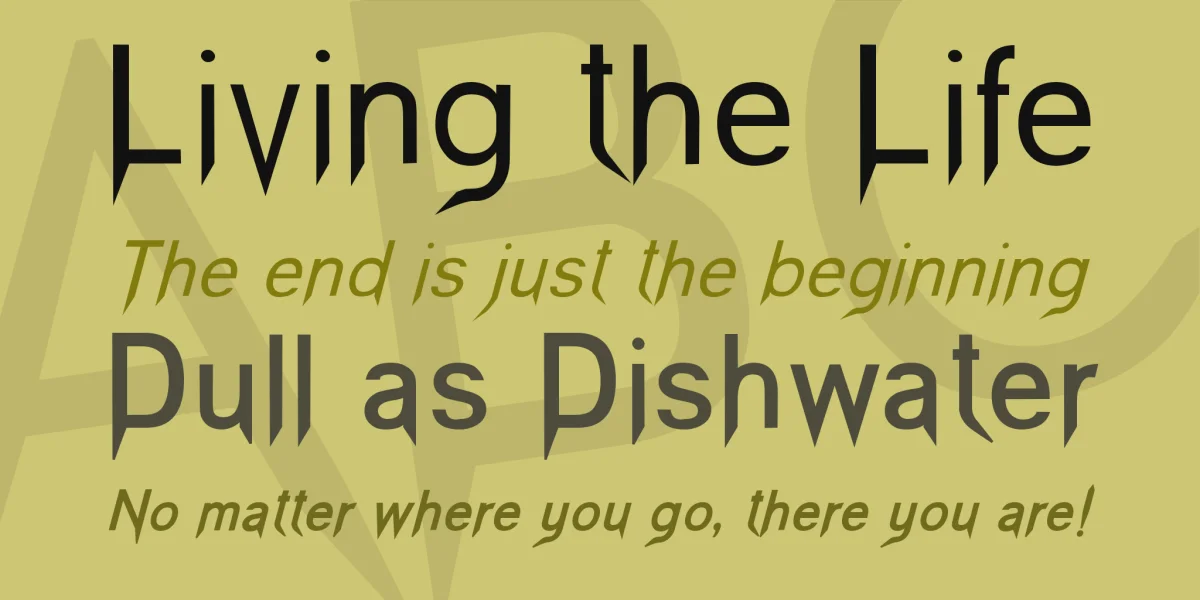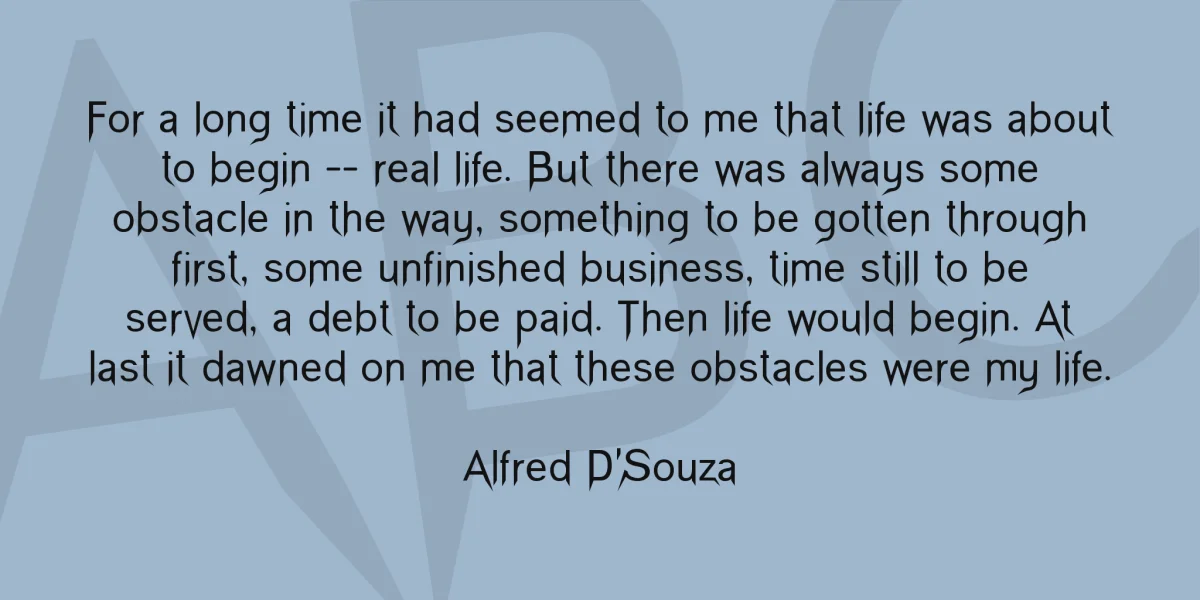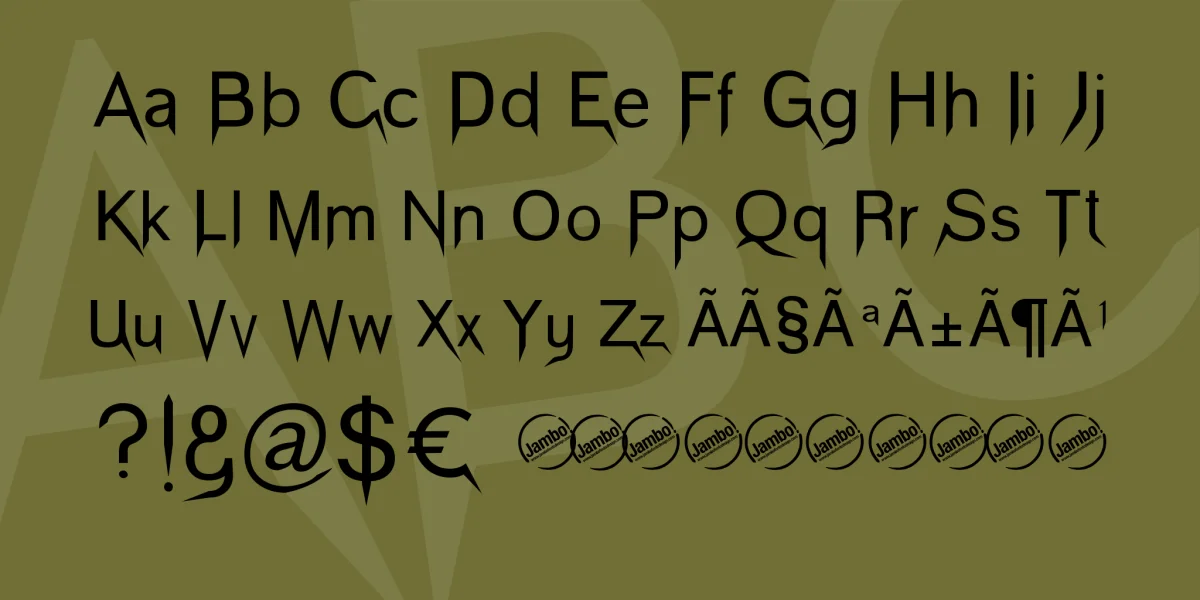
Vampetica is a fantasy typeface of the family of fonts designed in 2014, at first glance reminds traits of Gothic fonts. Free for personal use. For commercial use of this font, please contact the creator: www.jambofontsdesign.com